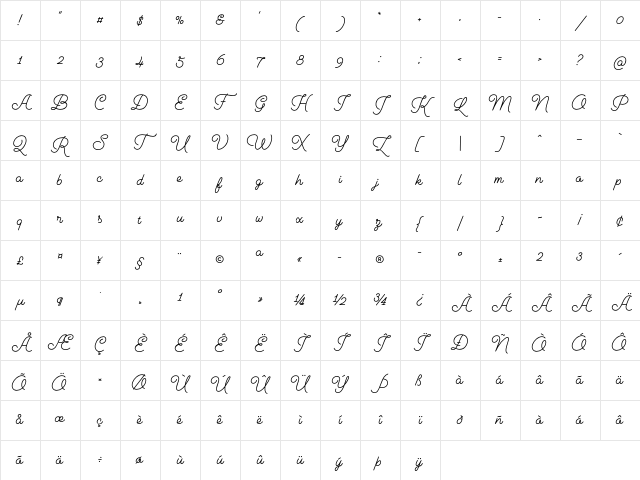
Cosmopolitan Script Medium
Foundry: Fenotype
Designer: Emil Bertell
Cosmopolitan Script Family
Design Context for Cosmopolitan Script
Cosmopolitan Script flows with the natural rhythm of handwritten lettering, making it ideal for designs that call for warmth and personal expression.
Font Pairing: Combine Cosmopolitan Script with a simple geometric sans for maximum contrast - the tension between flowing curves and clean structure is a classic typographic pairing.
Pro Tip: Use Cosmopolitan Script for short runs of text - names, titles, or taglines. Extended body copy in script faces tires the eye quickly.